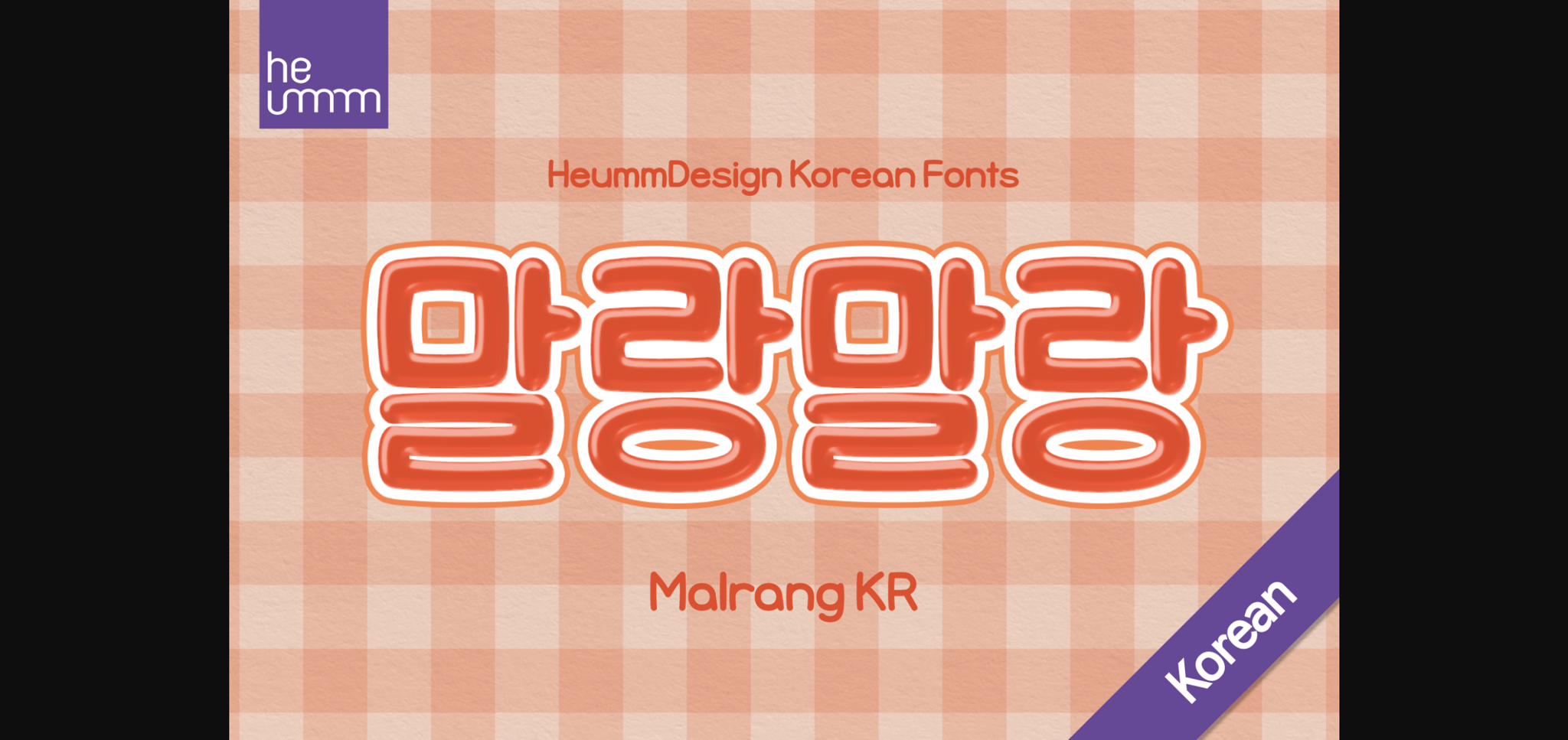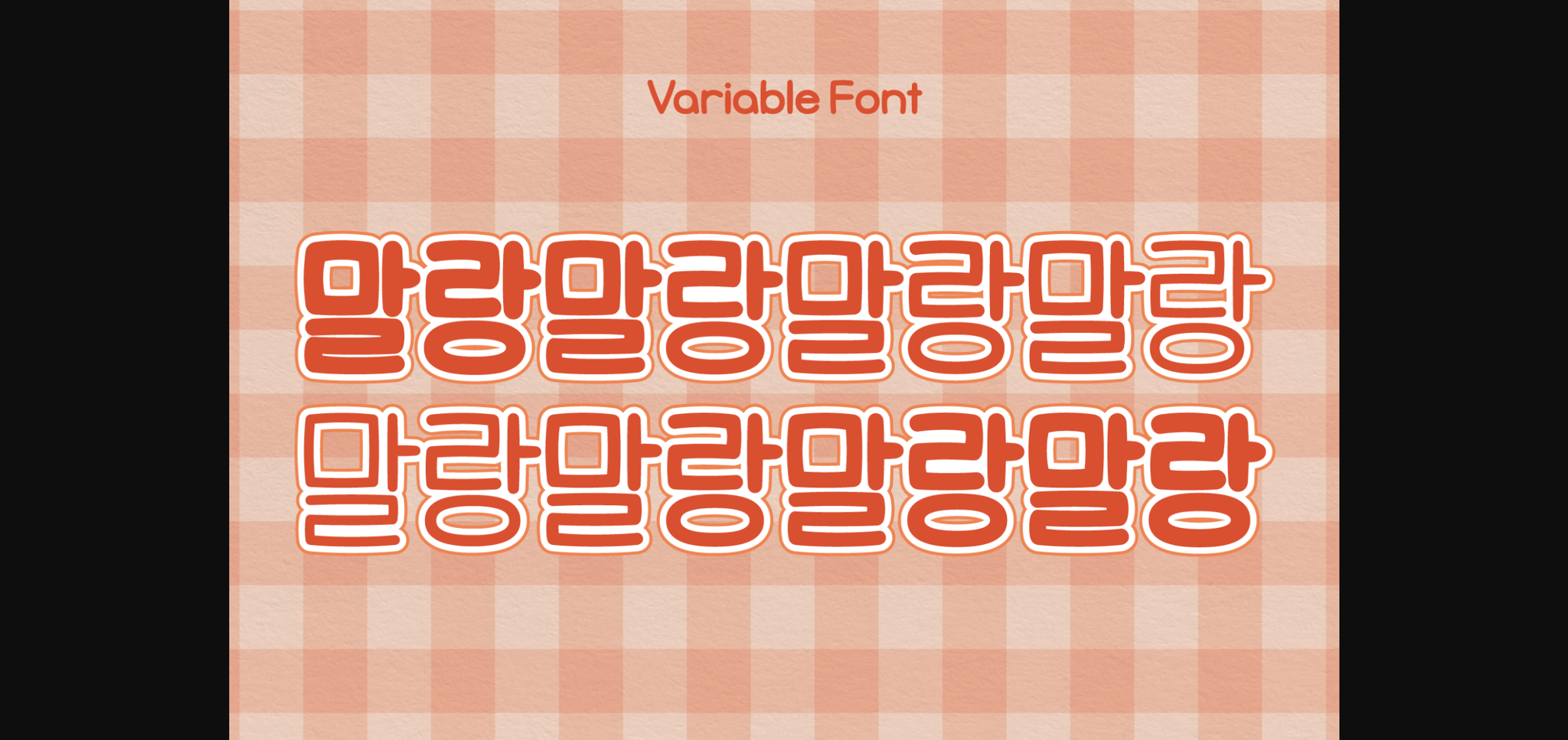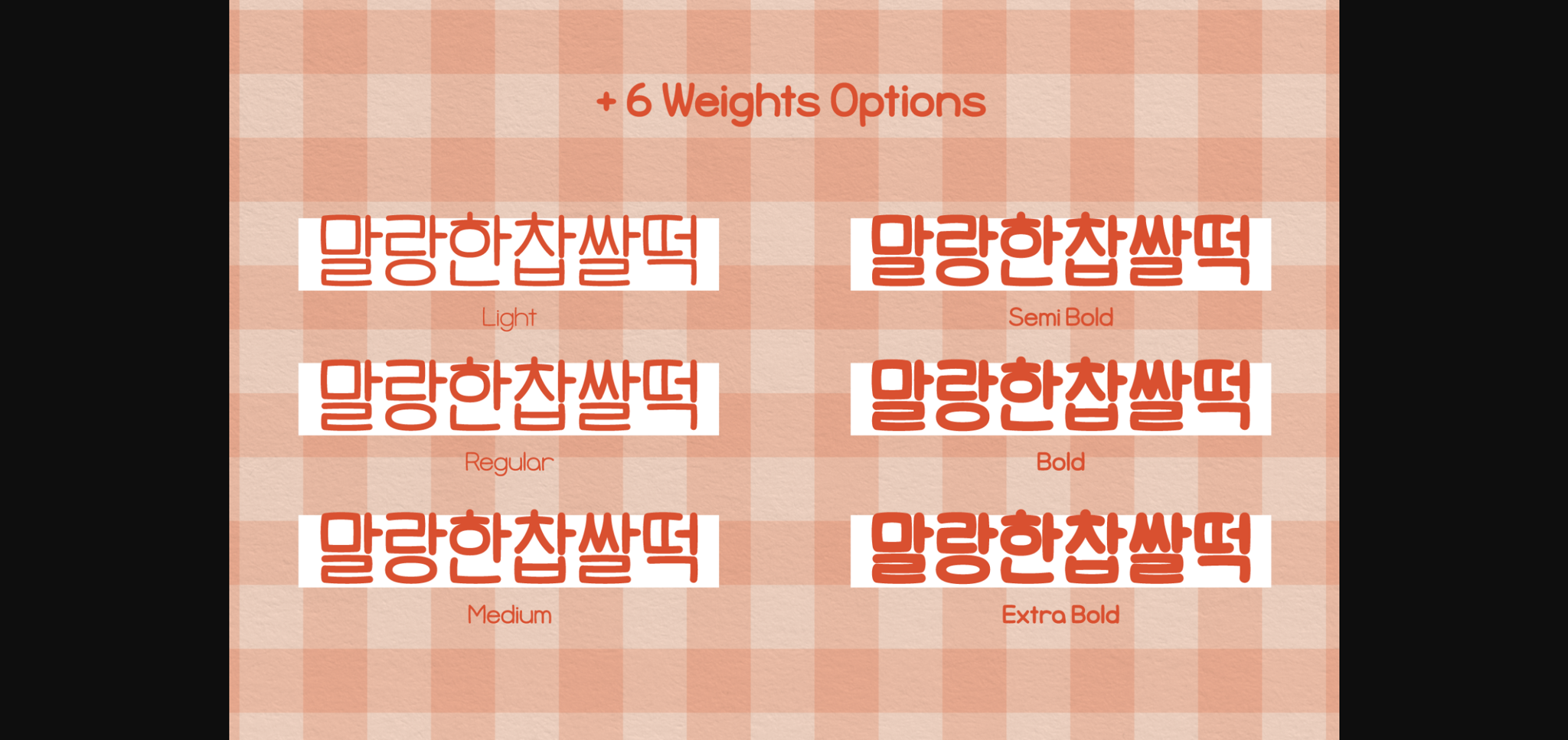
About Hu Malrang Kr Font
‘HU Malrang KR’ is a font that gives a round and soft feel to its tightly packed modules. This font has a variable function, allowing users to fine-tune the thickness they want. (Available only in Adobe programs.) Six basic weights are provided so that they can be used even in programs that do not apply the variable function. This font contains Hangul Korean.